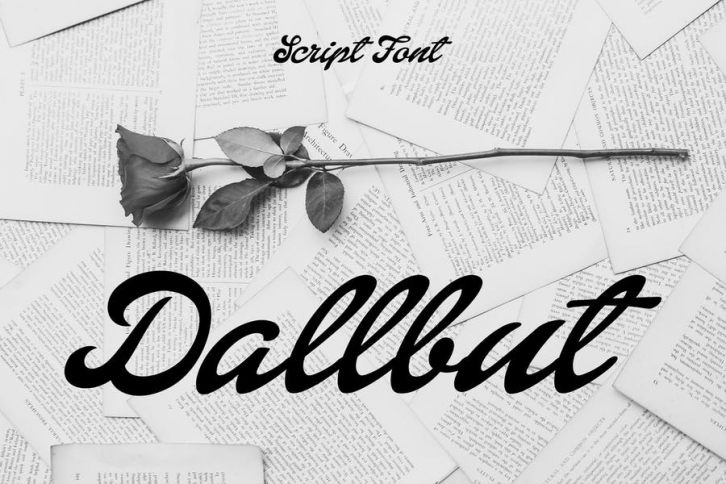
Introducing our new product ** Dallbut Script Font ** - Modern Font
** Dallbut Script Font ** - Modern Font is a bold and authentic display font. The font is suitable for any branding project like logo, t-shirt printing, esport, and many more. outstanding in a wide range of contexts.